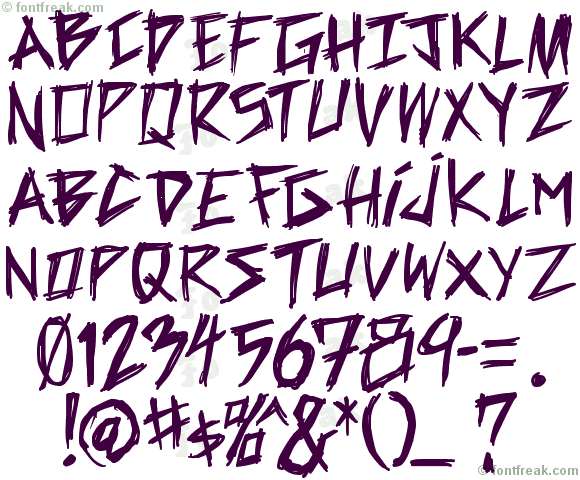
Brutal Dude
About Brutal Dude
Brutal Dude is a striking display font crafted by Teabeer Studios in 2008. This font falls into the category of decorative typefaces, characterized by its bold, rugged appearance that captures attention instantly. The visual style of Brutal Dude showcases uneven stroke weights and a hand-drawn quality, giving it an authentic, edgy vibe. The letters appear fragmented and energetic, with sharp angles and a raw texture that enhances its unique identity. The spacing between the characters is intentionally varied, adding to its dynamic and rebellious feel.
Ideal for a variety of creative projects, the Brutal Dude font is perfect for designing movie posters, skateboarding graphics, and music album covers, where a bold statement is essential. It also works well in promotional materials for trendy cafés or bars, as its lively character evokes a sense of urban culture and creativity. Graphic designers looking to convey a sense of edginess or youthfulness will find this font particularly appealing. Small business owners aiming to attract a younger demographic will also appreciate its distinct style. Content creators who want to add a touch of personality and flair to their projects will find Brutal Dude font free download to be a valuable resource.
What sets the Brutal Dude font apart is its ability to evoke emotion through its raw and unpolished style. This font isn't just a typeface; it's a statement piece that embodies a sense of freedom and individuality. Whether you're designing for print or digital media, Brutal Dude offers an impactful way to communicate your message and engage your audience. Embrace the boldness of Brutal Dude and let it elevate your creative projects with its unique charm.